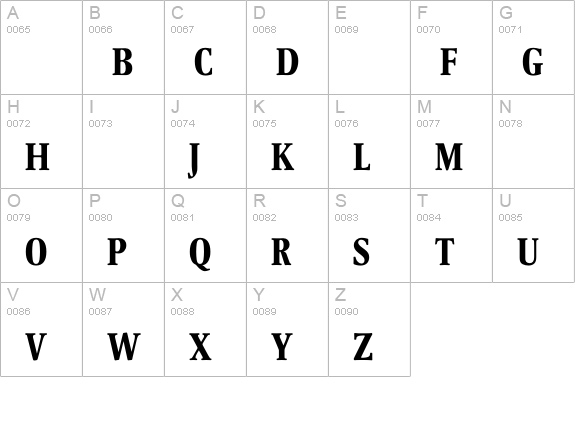
LeightonBoldCond Font Details
LeightonBoldCond is a strikingly bold and confident typeface that exudes sheer power and elegance. Its strong, condensed letterforms make a commanding statement, demanding attention and leaving a lasting impression. This font is perfect for headlines, titles, and any design project that requires a touch of distinction. With its clean lines and sharp edges, LeightonBoldCond brings a modern and sleek aesthetic to any layout. Its compact nature allows for efficient use of space, making it particularly well-suited for projects that require a high volume of text without sacrificing legibility. The timeless appeal of LeightonBoldCond lies in its versatility. Whether used in print or digital mediums, this font effortlessly adapts to various design styles, from corporate to editorial, from advertising to branding. Its bold presence instantly grabs the viewer's attention, while its refined details add a touch of sophistication. But what truly sets LeightonBoldCond apart is that it is free to download at FontsMarket.com. Yes, you read that right – this exceptional font is freely available to enhance your creative endeavors. FontsMarket.com is renowned for providing high-quality fonts, and LeightonBoldCond is no exception. By offering this font for free, FontsMarket.com ensures that designers and enthusiasts alike can access and utilize this remarkable typeface without any barriers. So, why wait? Download LeightonBoldCond today from FontsMarket.com and experience the power and elegance it brings to your designs. Unleash your creativity and make a bold statement with this incredible free font.